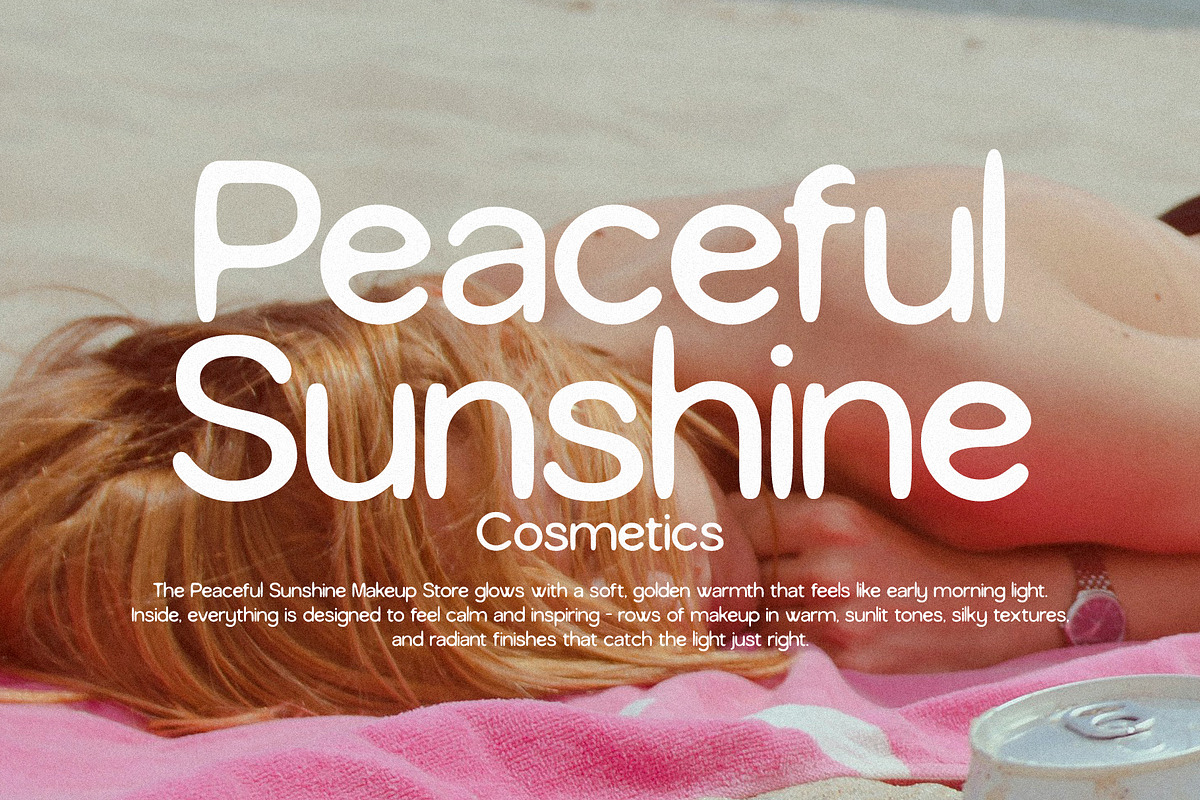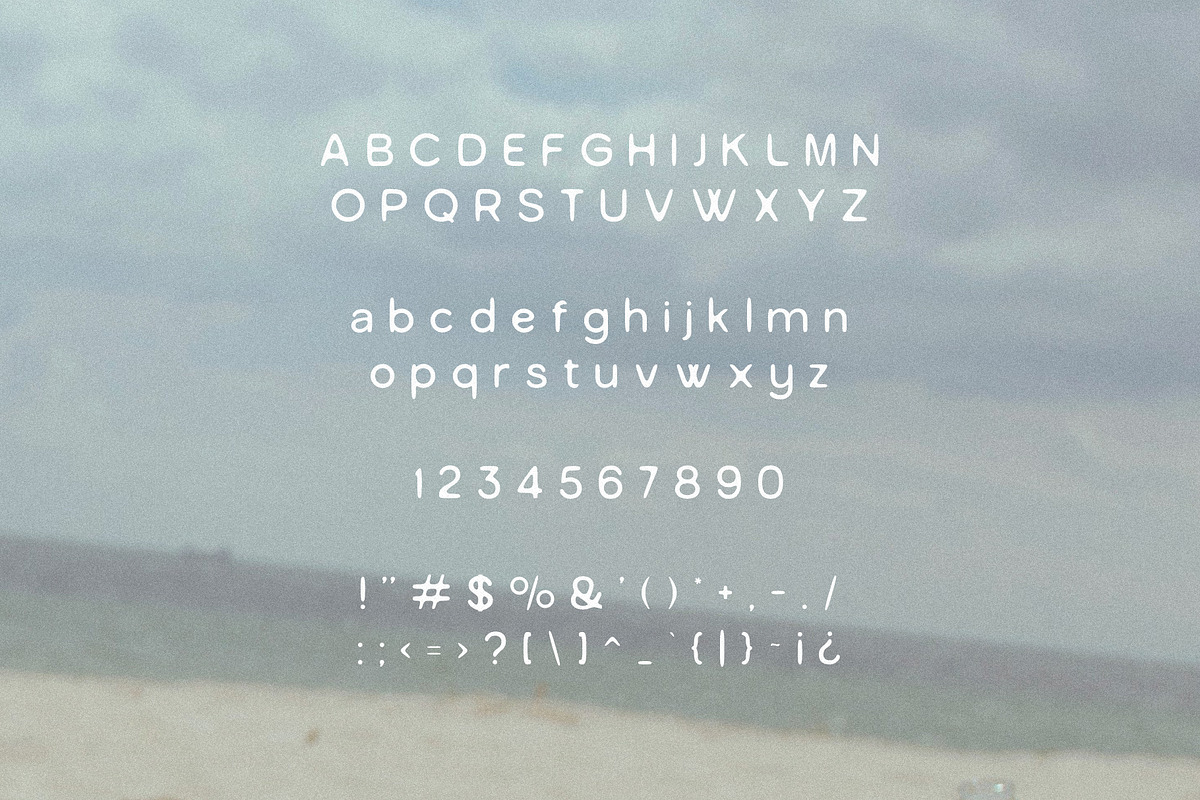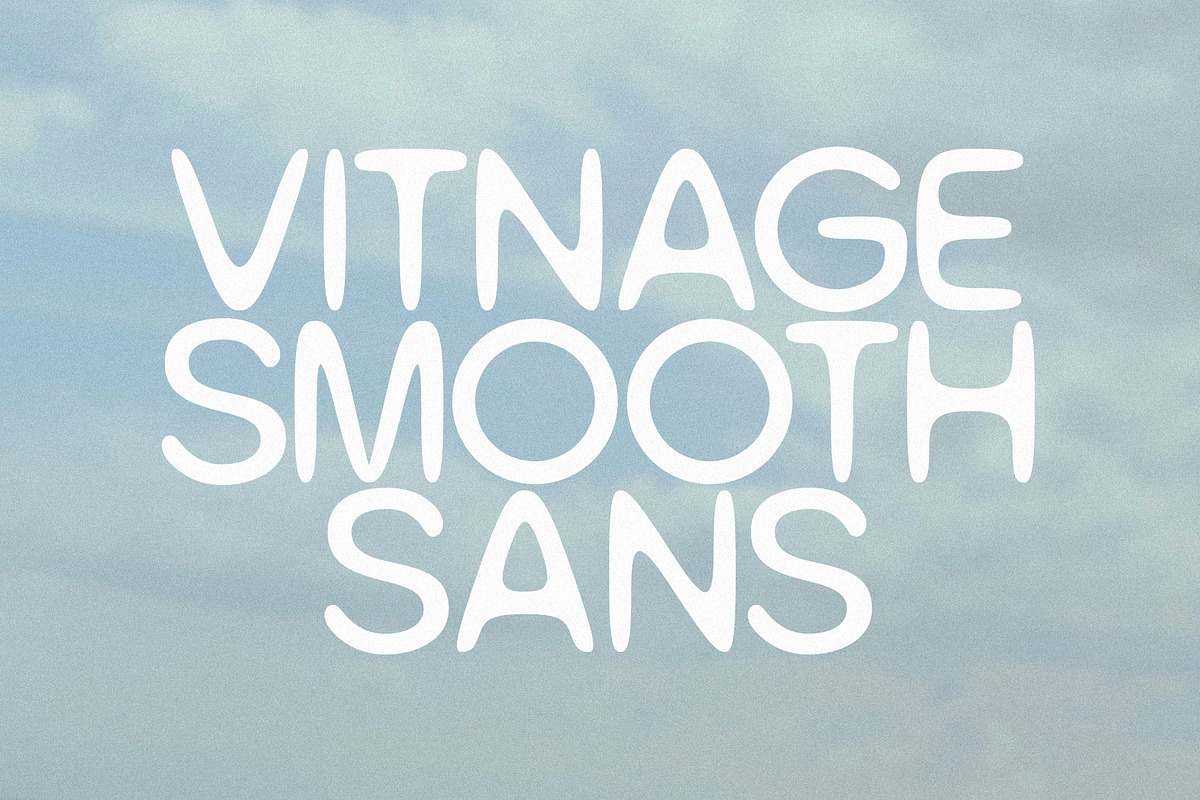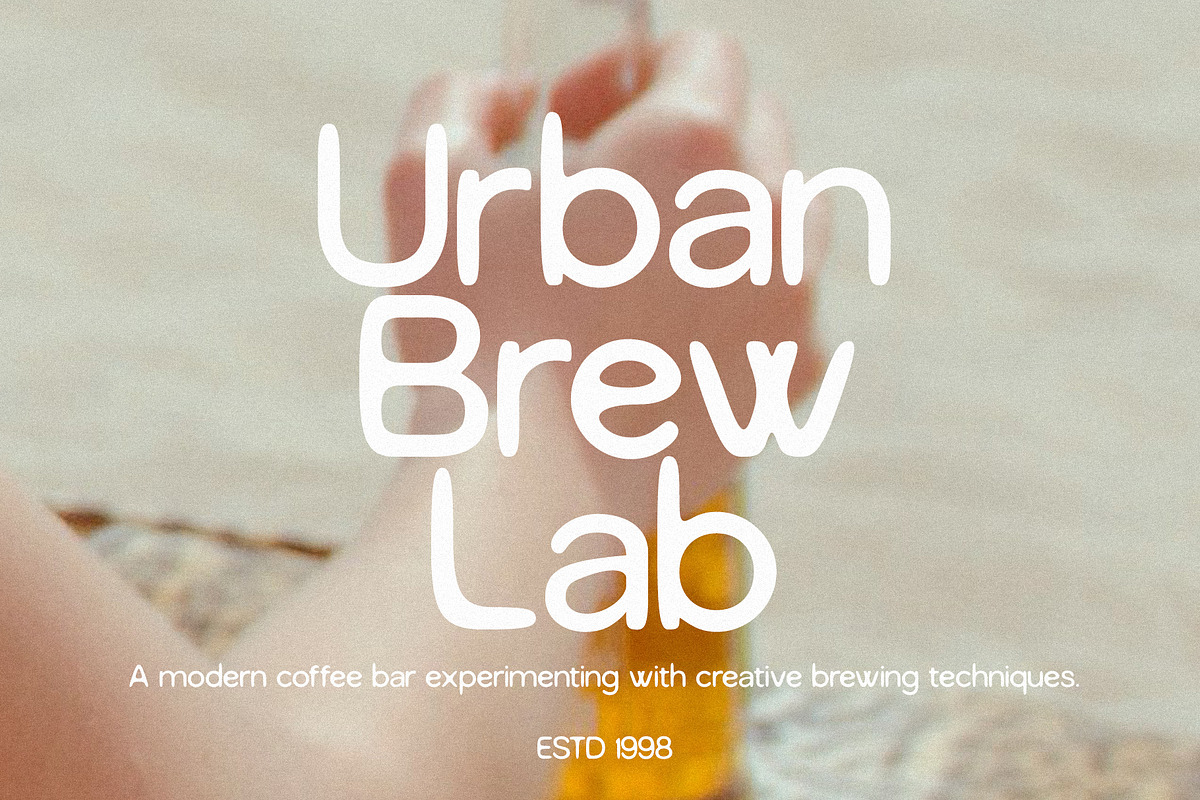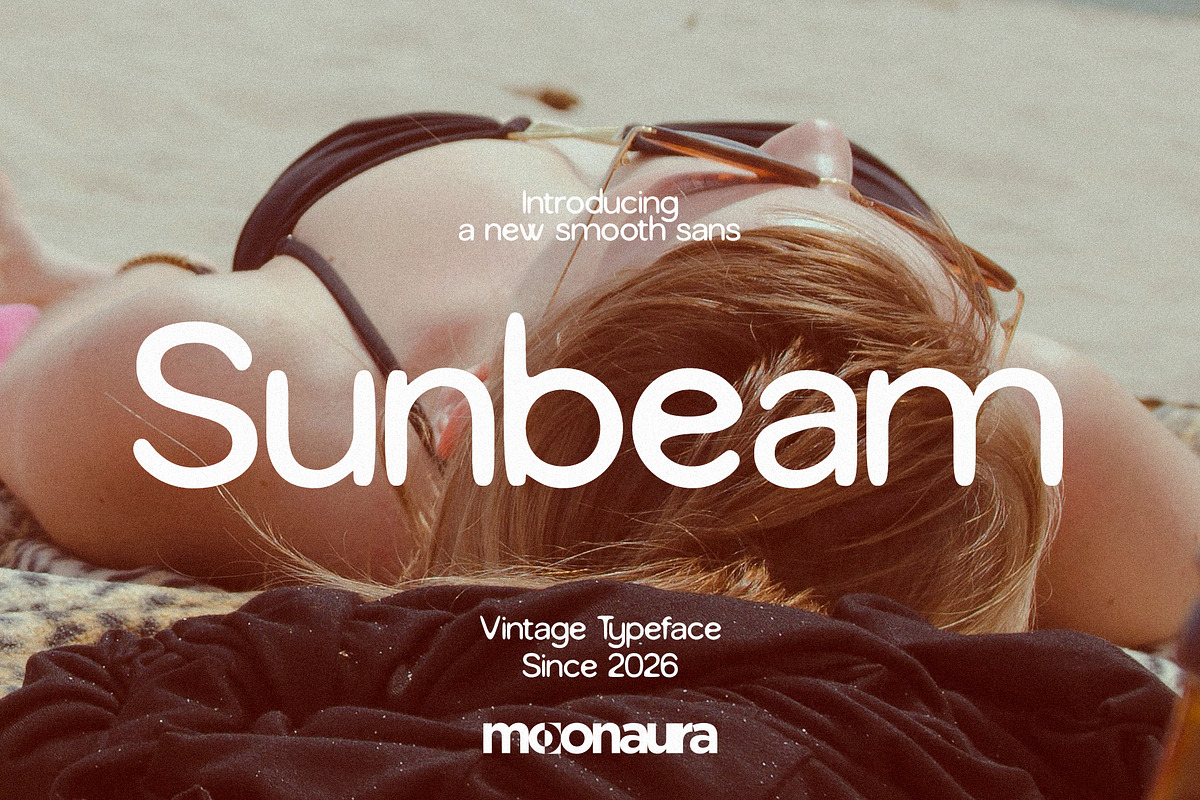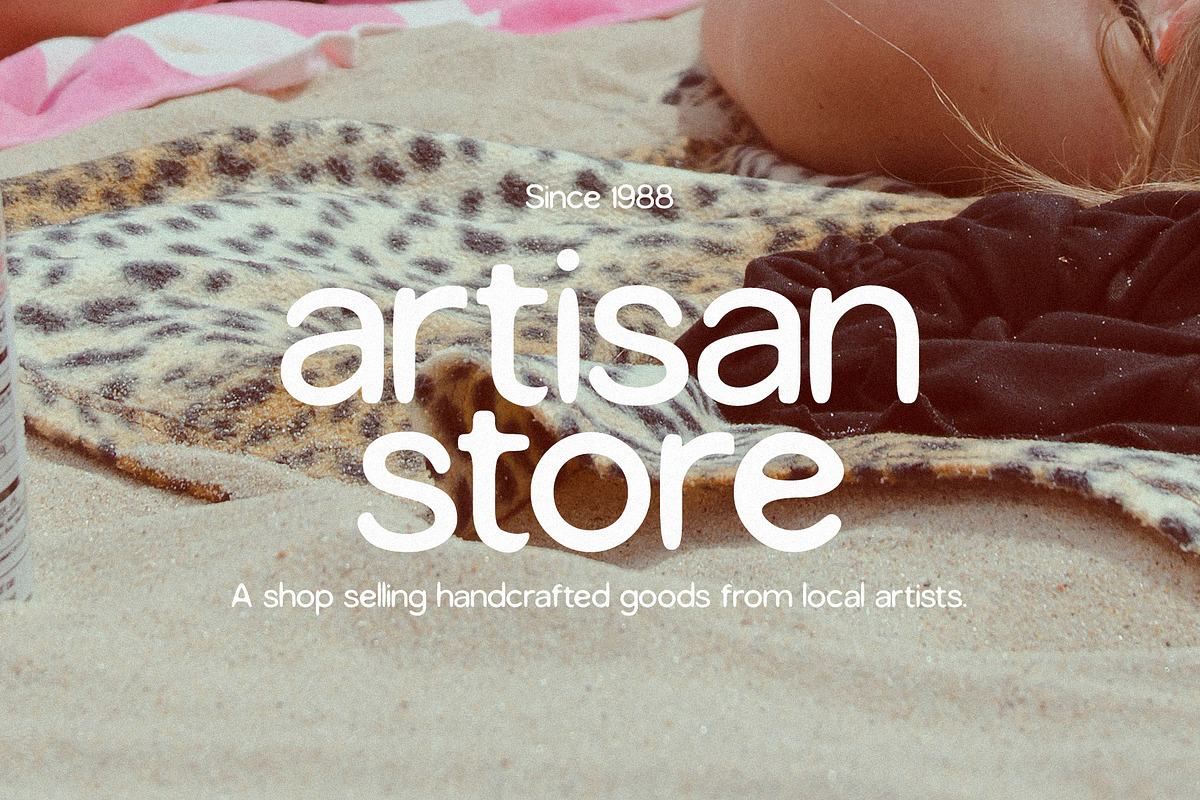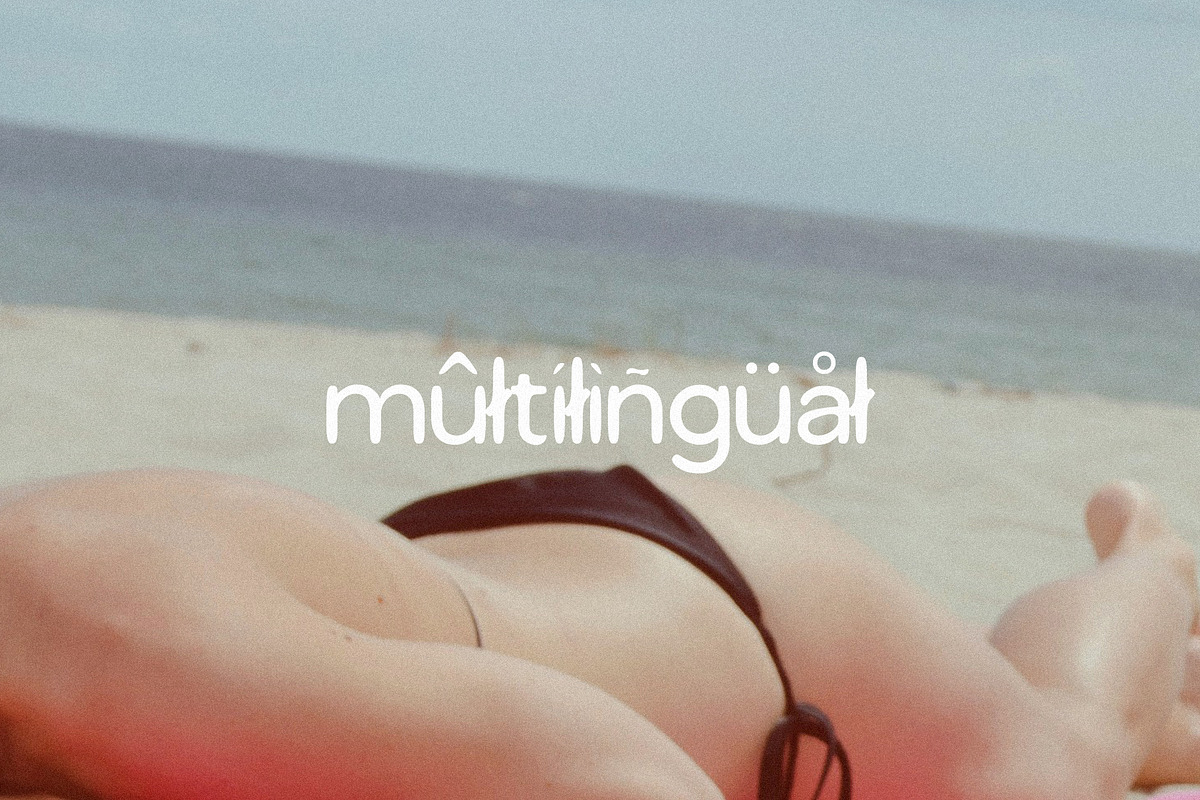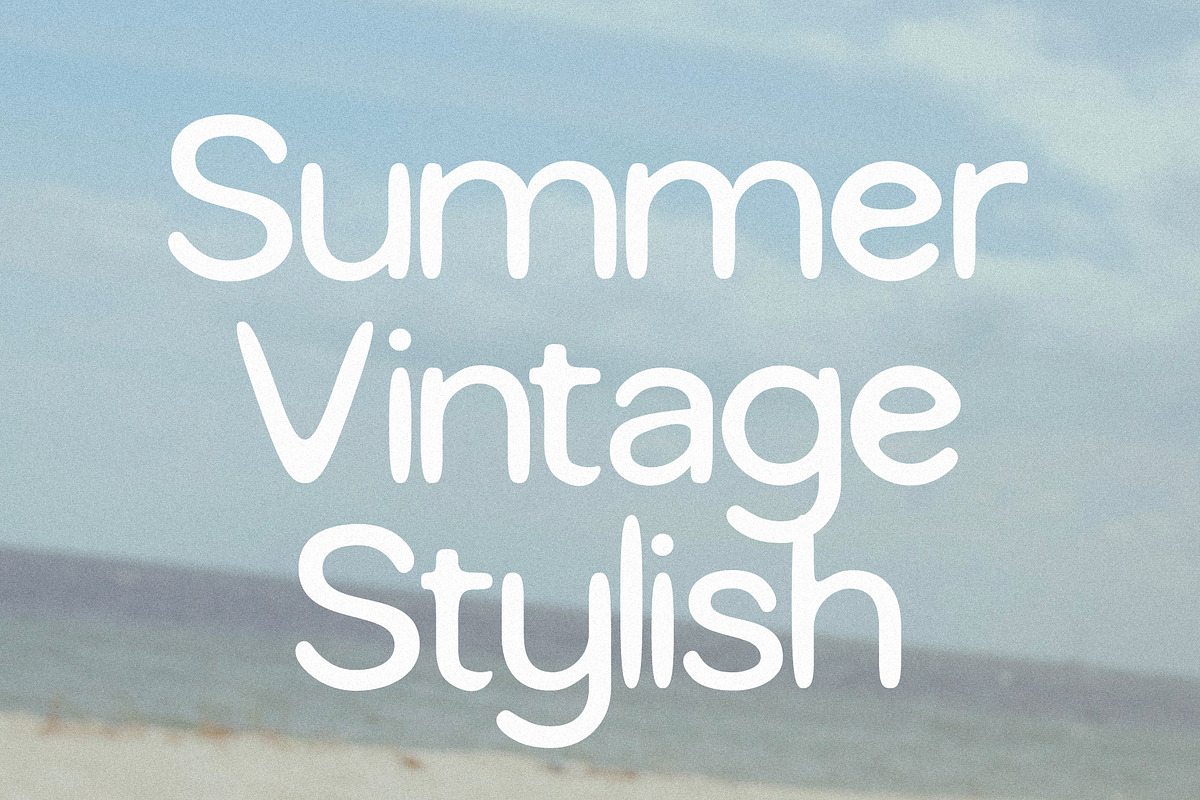
Sunbeam - Summer Vintage Sans Serif
Sunbeam – Summer Vintage Sans Serif is a warm, nostalgic typeface that captures the glow of endless summer days. Blending retro charm with modern simplicity, its soft curves and balanced structure create a look that feels both timeless and fresh. Inspired by sun-faded signage and vintage coastal aesthetics, Sunbeam brings a relaxed, effortless elegance to any design. Perfect for branding, packaging, social media, and editorial layouts, it shines in projects that call for a light, airy, and sun-kissed vibe. Sunbeam isn’t just a font—it’s a feeling of warmth, freedom, and golden-hour beauty captured in every letter.